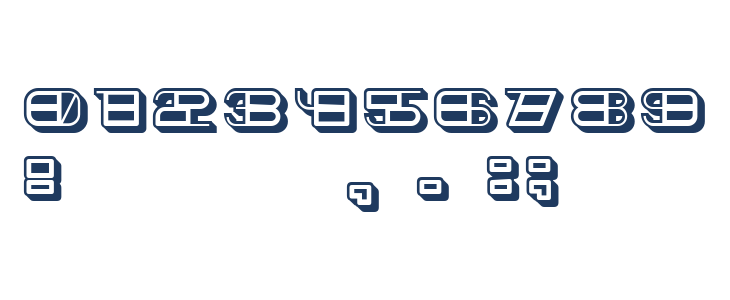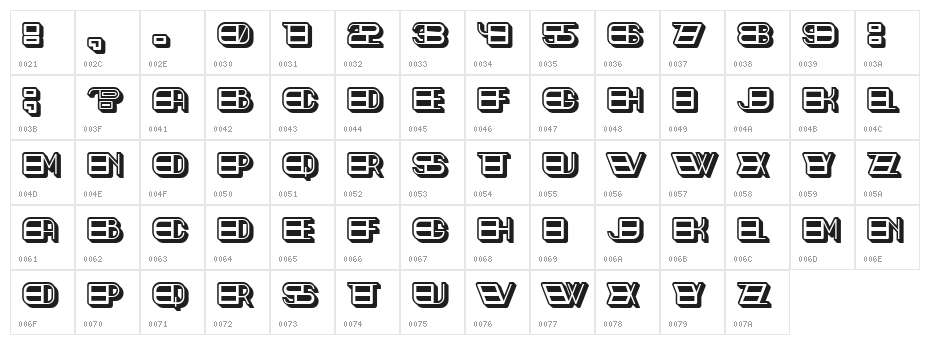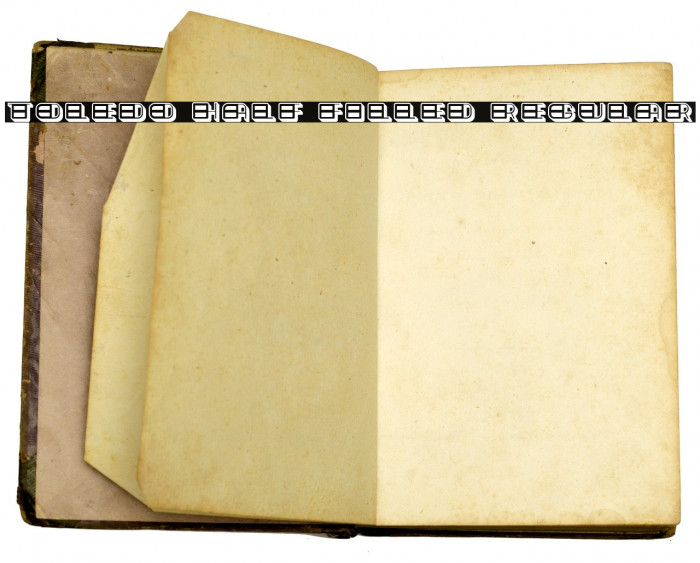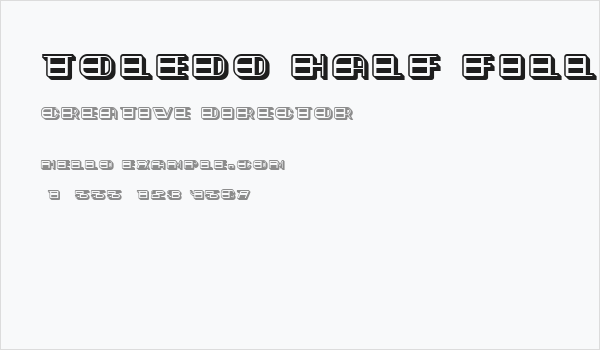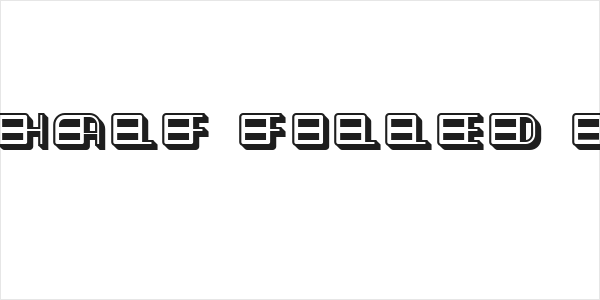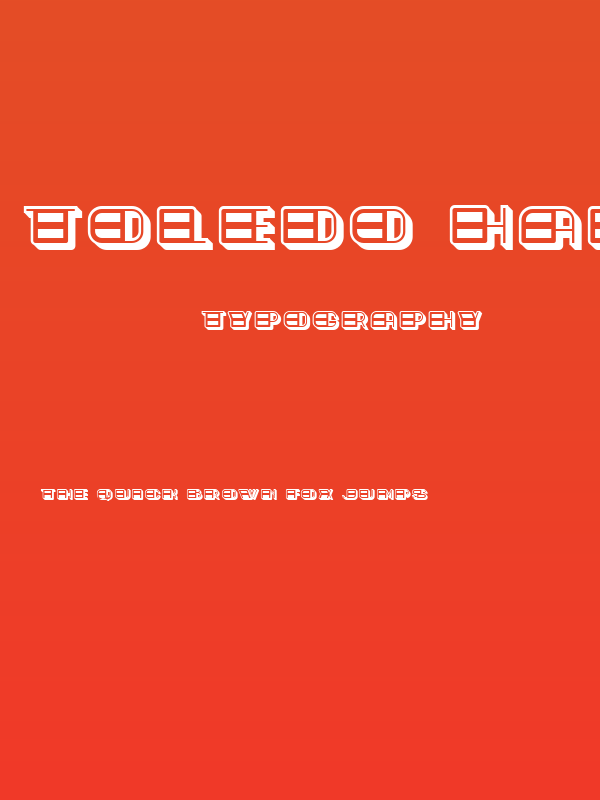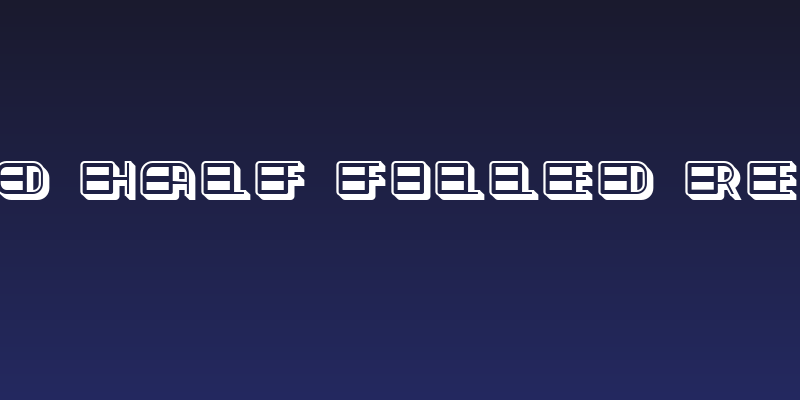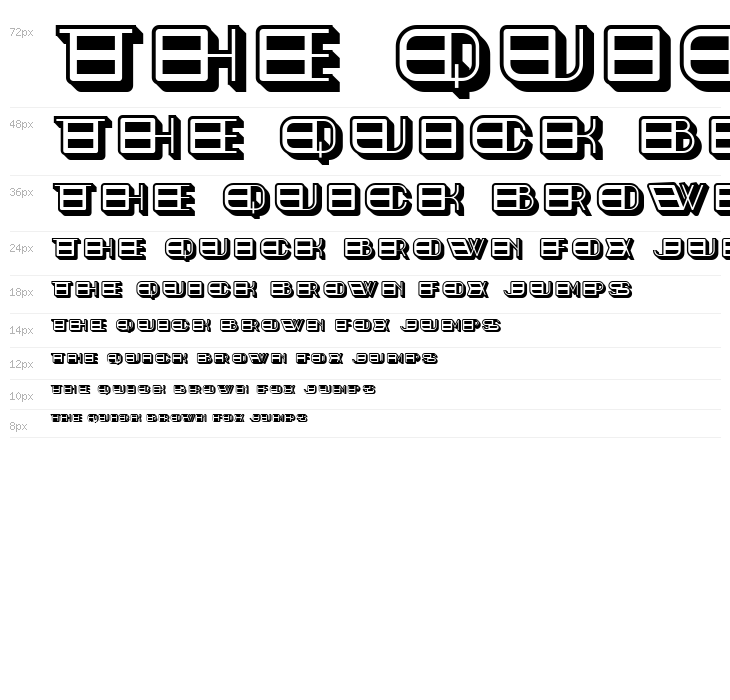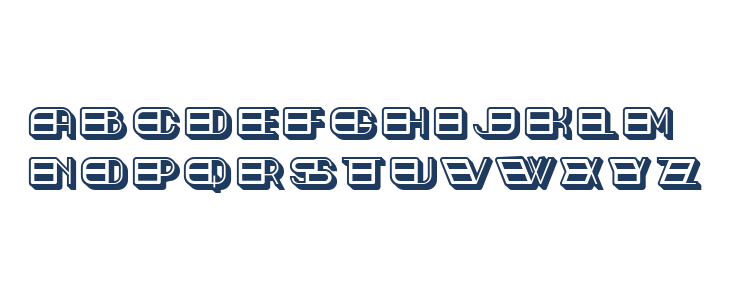
Toledo Half Filled Regular Font
Toledo Half Filled Regular Description
This font features a bold, geometric design with a unique half-filled style that creates a striking visual impact. The characters are constructed with thick, uniform strokes and a consistent width, giving them a strong presence. The half-filled aspect adds a modern twist, making the font stand out with its innovative approach. The uppercase and lowercase letters maintain a cohesive look, while the numerals and special characters follow the same design principles, ensuring a harmonious appearance across all elements. The font's distinct style makes it ideal for projects that require a bold and contemporary aesthetic.
| Proposed Projects | Ideal for branding, posters, headlines, and any project needing a bold, modern aesthetic. |